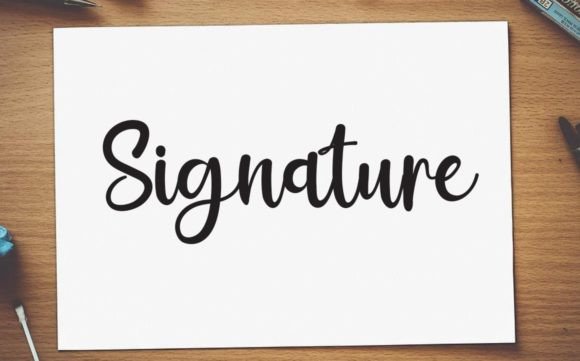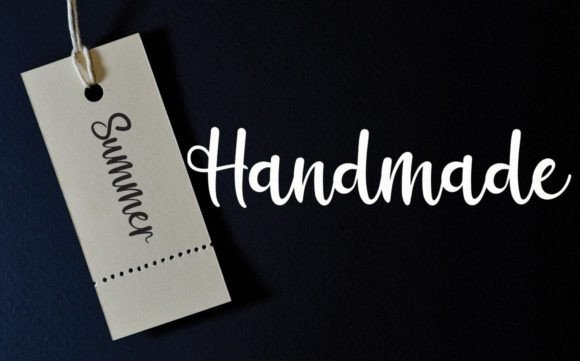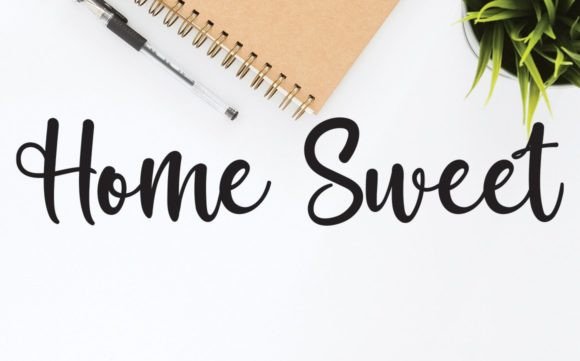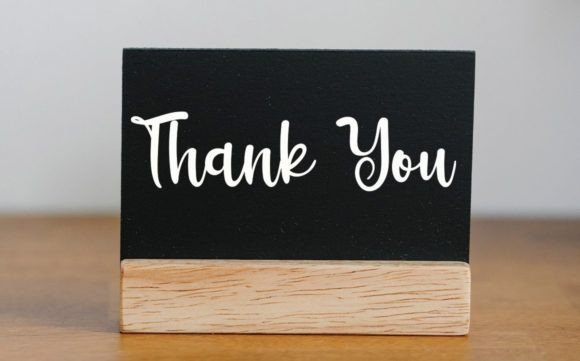
Quickly Font
About Quickly Font
“Quickly” is a font that combines simplicity and smoothness in a script style, creating a unique and original look. Its versatile design makes it suitable for a wide range of crafty ideas, allowing it to be utilized in various contexts, from letterheads and titles to stationery and beyond.
**Simple Elegance**: “Quickly” exudes simple elegance with its smooth and flowing letterforms. Its simplicity enhances readability while adding a touch of sophistication to the text. The font’s clean lines create a polished and refined appearance, making it a versatile choice for a variety of applications.
**Smooth Script Design**: The smooth script design of “Quickly” contributes to its overall appeal. The fluidity of the letters adds a sense of grace and fluid movement, making it visually pleasing. The smooth curves and connecting strokes create a seamless flow, enhancing the font’s aesthetic charm.
**Wide Range of Applications**: The versatility of “Quickly” allows it to be applied to various crafty ideas. Whether used in business correspondence, creative titles, or personalized stationery, the font adapts seamlessly to different design purposes. Its original look makes it appealing to a diverse audience.
**Crafty and Approachable**: The crafty and approachable nature of “Quickly” makes it accessible and friendly. It conveys a sense of creativity and warmth, making it suitable for designs that require a touch of charm and approachability. The font’s friendly demeanor creates a welcoming atmosphere for readers.
In summary, “Quickly” is a font that combines simplicity, smoothness, and originality. Its simple elegance and versatile design make it a valuable asset for various crafty ideas and design projects. By incorporating “Quickly” into your designs, you can achieve a polished and approachable look, ensuring your creations resonate with a wide audience. Let “Quickly” be the go-to choice for adding a touch of sophistication and charm to your crafty endeavors, making them visually appealing and engaging.